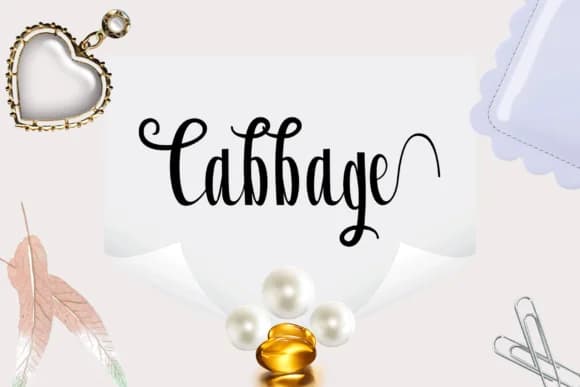
Cabbage Font by Rt Creative is a flowing script typeface designed with the warmth of natural handwriting. The organic, gestural quality of its letterforms brings an authentic human touch to any application, whether displayed large or reduced for smaller formats where legibility remains strong throughout.
This handwritten script works particularly well for creating intimate design applications like DIY wedding favor tags, artisanal food packaging labels, handmade greeting card collections, and custom invitation suites that need personal charm. Designers and crafters also turn to scripts like this for hand-lettered social media story text, personalized gift tags, custom retail signage, and product branding where authenticity resonates with audiences more than commercial polish.
The typeface carries the sketch-like character that makes handwritten fonts appealing across both digital and print mediums. Its construction supports the kind of personal branding work where consumers connect with the human story behind a small business or creative venture. Whether applied to editorial illustrations, lifestyle photography overlays, website headers, or the opening page of a design portfolio, Cabbage brings the intentionality of deliberate penmanship to your work. Get Cabbage Font on Creative Fabrica and add a handcrafted dimension to your next project.
Cabbage Font is a script font that shines as a display or heading face. Pair it with a clean sans-serif or serif font for body text β the contrast creates a clear hierarchy while the two styles stay balanced and easy to read.
Cabbage Font
by Rt Creative